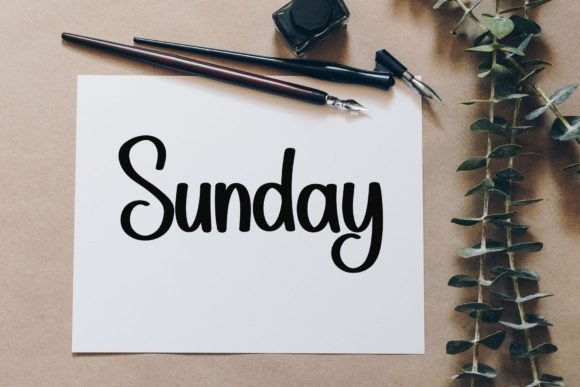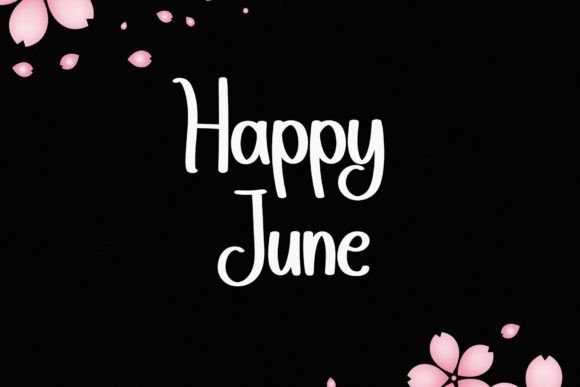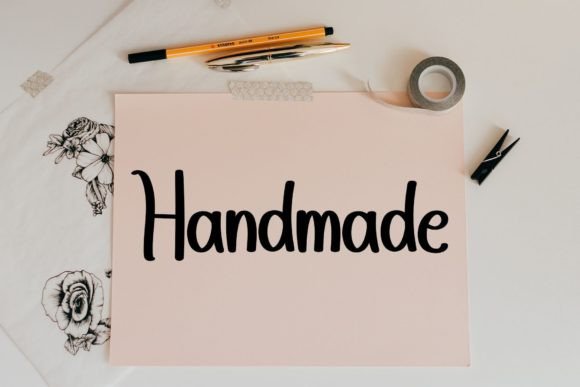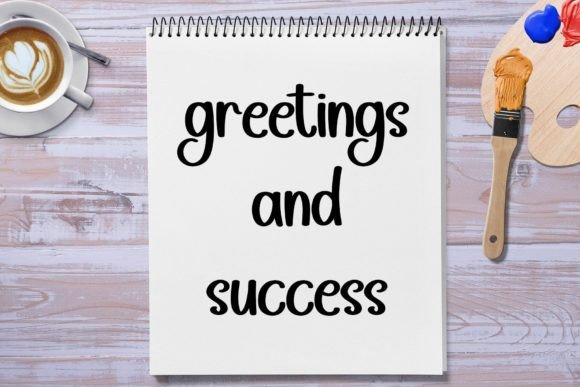
Cowboy Font
About Cowboy Font
“Cowboy: Where Sweetness Meets Elegance
Meet Cowboy, a charming handwritten font that seamlessly blends sweetness with elegance, creating a delightful experience for your design projects. With characters that dance along the baseline, this font brings a sense of liveliness and luxury to any creative endeavor, adding a touch of sophistication to your designs.
What makes Cowboy truly enchanting is its sweet demeanor. The font’s handwritten characters exude warmth and friendliness, making it perfect for projects that aim to evoke a sense of approachability and charm. Imagine using Cowboy for wedding invitations, where its delightful script adds a touch of romance and elegance to the celebration. Picture it gracing greeting cards, infusing heartfelt messages with a sense of sincerity and sophistication. Visualize it on product packaging, transforming ordinary items into luxurious treats that captivate customers with their sweet allure. With Cowboy, your designs are imbued with an endearing sweetness that resonates with viewers.
The font’s versatility shines through in various applications. Its playful characters make it ideal for children’s books, creating a whimsical and captivating reading experience. Whether you’re designing posters, social media graphics, or event invitations, Cowboy becomes a delightful companion, enhancing your content with its charming presence. Its ability to dance along the baseline adds a touch of luxury, making every design project a visual delight.
Furthermore, Cowboy is not just a font; it’s an emotion—a feeling of warmth and sweetness that permeates your designs and captures the hearts of viewers. As you incorporate Cowboy into your projects, you infuse them with a sense of joy and elegance, making them unforgettable and endearing to your audience.
Embrace Cowboy as your trusted companion for projects that require a blend of sweetness and elegance. Let its delightful characters and playful baseline dance add a touch of luxury to your designs, making them truly enchanting. Whether you’re creating invitations, greeting cards, posters, or any other creative content, Cowboy transforms your ideas into delightful experiences, leaving a lasting impression on everyone who encounters them.”